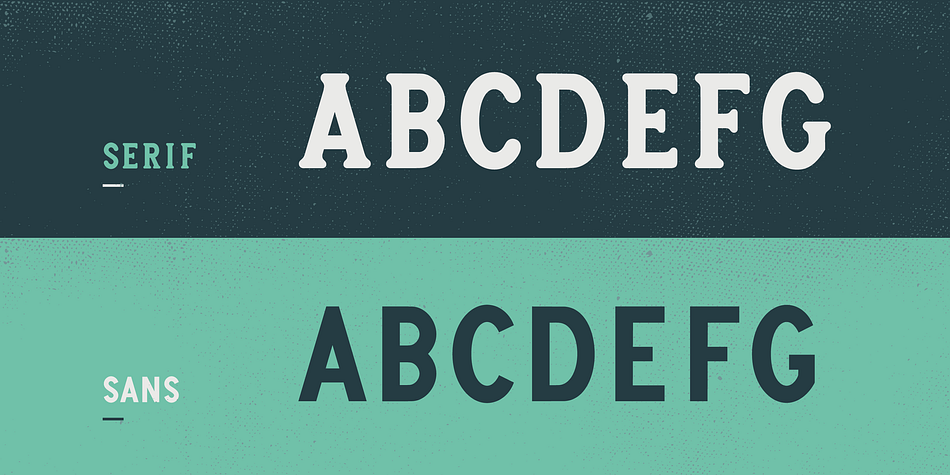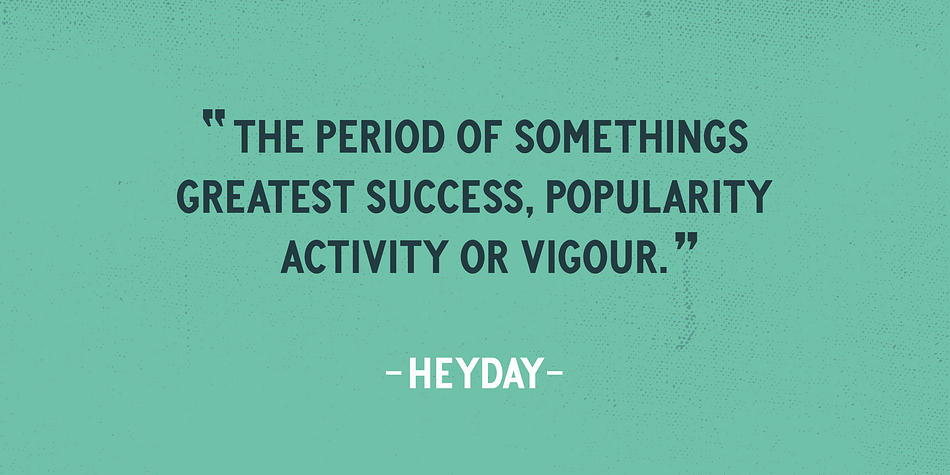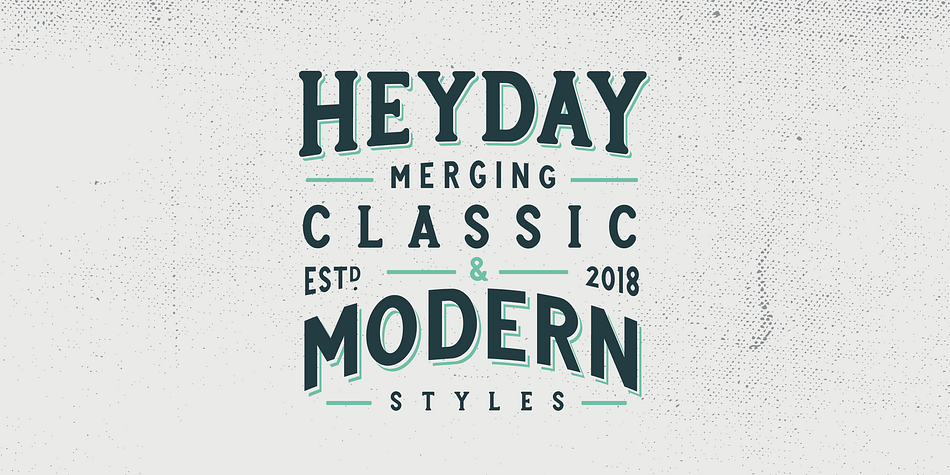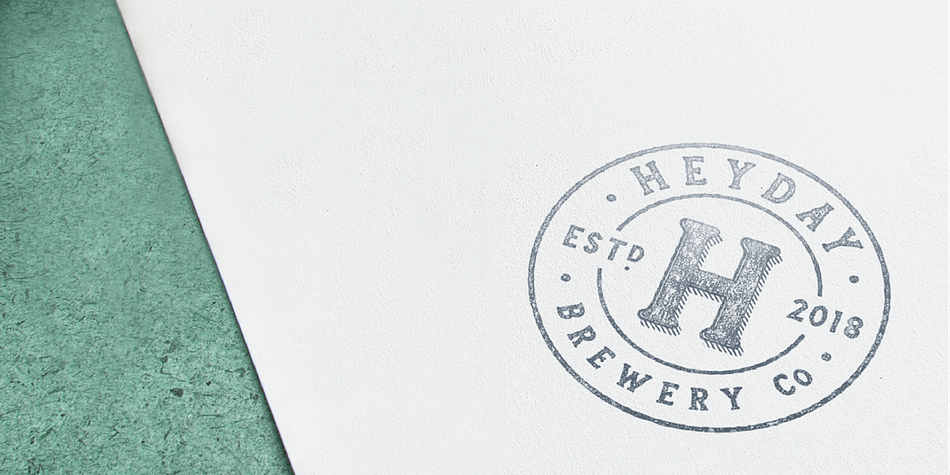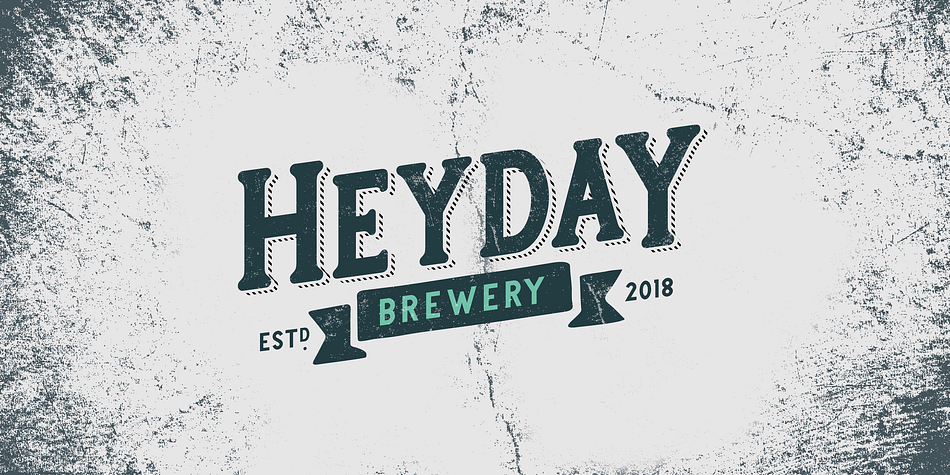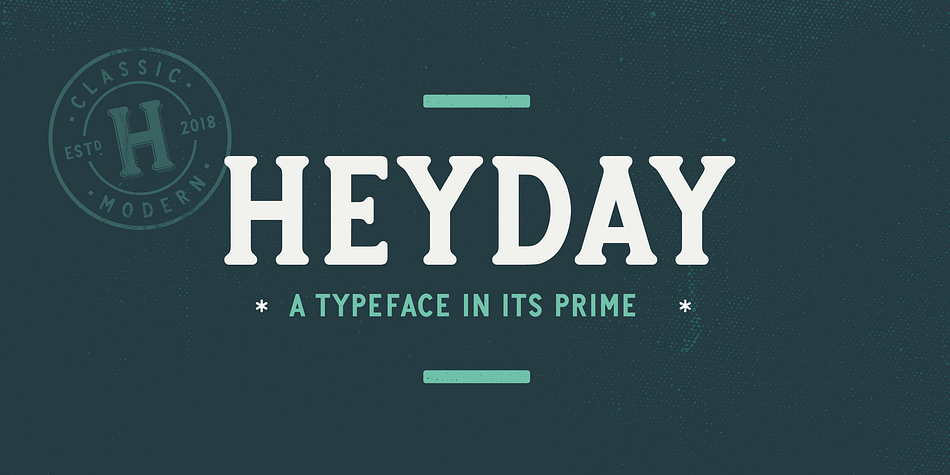
Designed by Ed Hemphill, Heyday is a display sans and display serif font family. This typeface has two styles and was published by Typed.
Heyday is a font in its prime!
This font was inspired by vintage style typography with the use of thick rounded serifs, while the shape of the letterform has a contemporary edge which brings it into the modern day. This combination of classic and modern creates a unique look and feel that enables the font to feel at home in any era.
The Heyday family consists of a serif and sans weight.